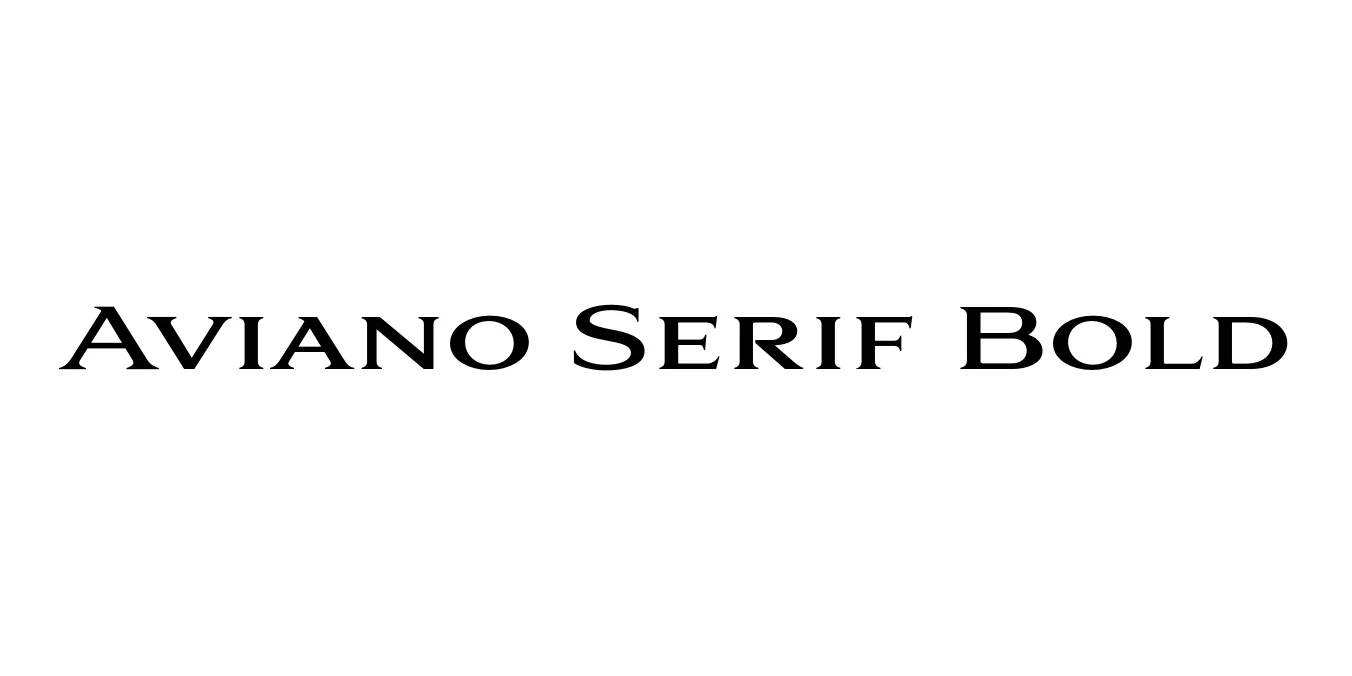
Aviano Serif Bold
Designed by Jeremy Dooley
Aviano Serif Bold is a cornerstone of the Aviano superfamily, designed by Jeremy Dooley for Insigne Design. Inspired by the classical proportions of Roman stone carvings and monumental inscriptions, this typeface captures the essence of antiquity while being optimized for modern digital display. The Bold weight specifically enhances the font's gravitas, making it a powerful choice for high-impact visual communication that demands respect and authority.
The design features wide, generous letterforms and sharp, refined serifs that emphasize its luxurious and timeless appeal. As an all-caps titling face, it eliminates lowercase characters to focus on the geometric purity of the Roman alphabet. This makes it an indispensable tool for designers working on premium branding, cinematic graphics, and sophisticated editorial headers where a sense of heritage and permanence is essential.
Aviano Serif Bold Best Uses
Perfect for creating high-end logos for fashion, jewelry, and luxury hospitality brands.
Ideal for dramatic film opening titles and large-scale promotional movie posters.
Excellent for bold, sophisticated headlines in premium lifestyle or fashion magazines.
Adds a touch of prestige and authority to formal invitations and certificates.